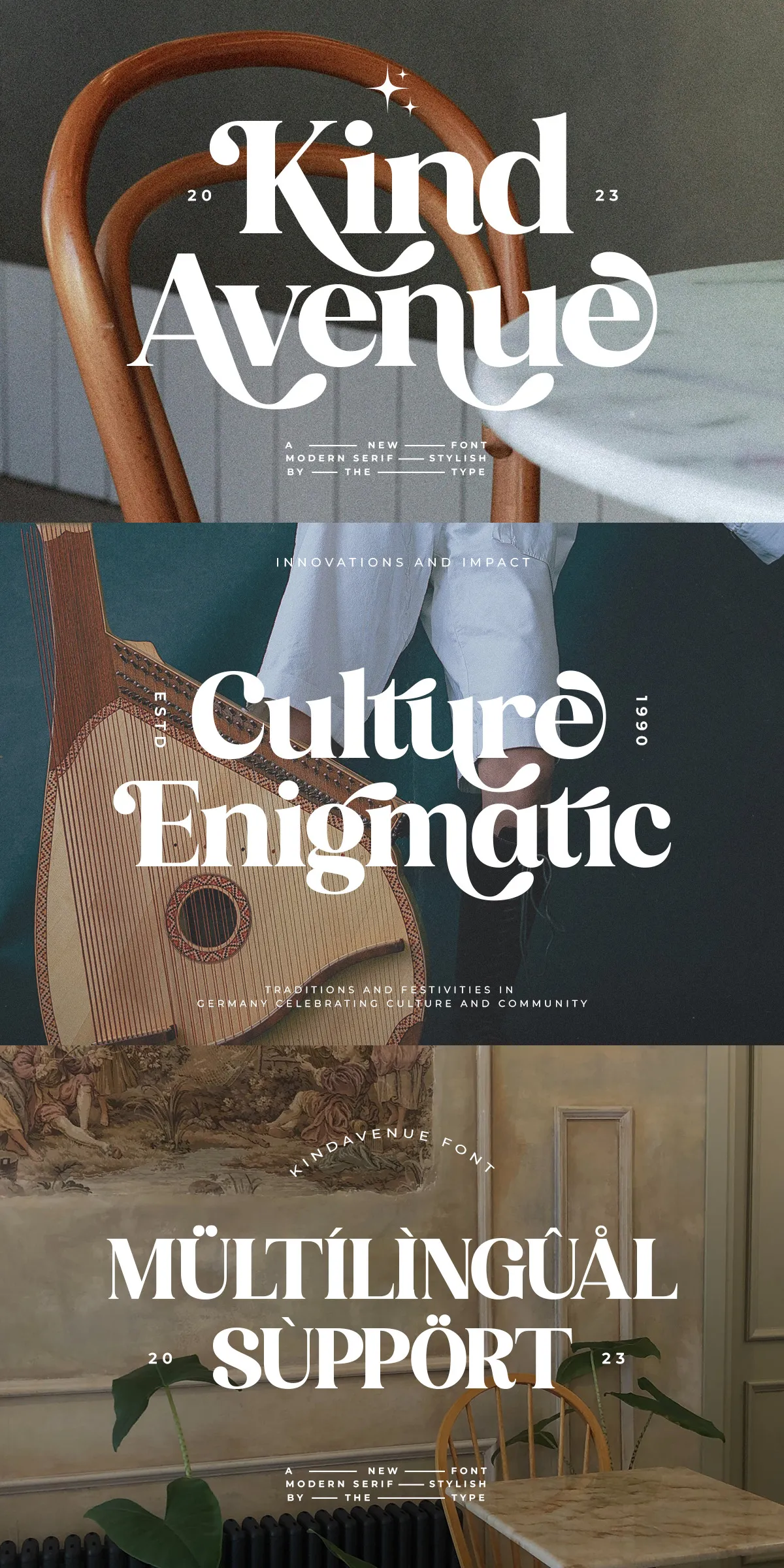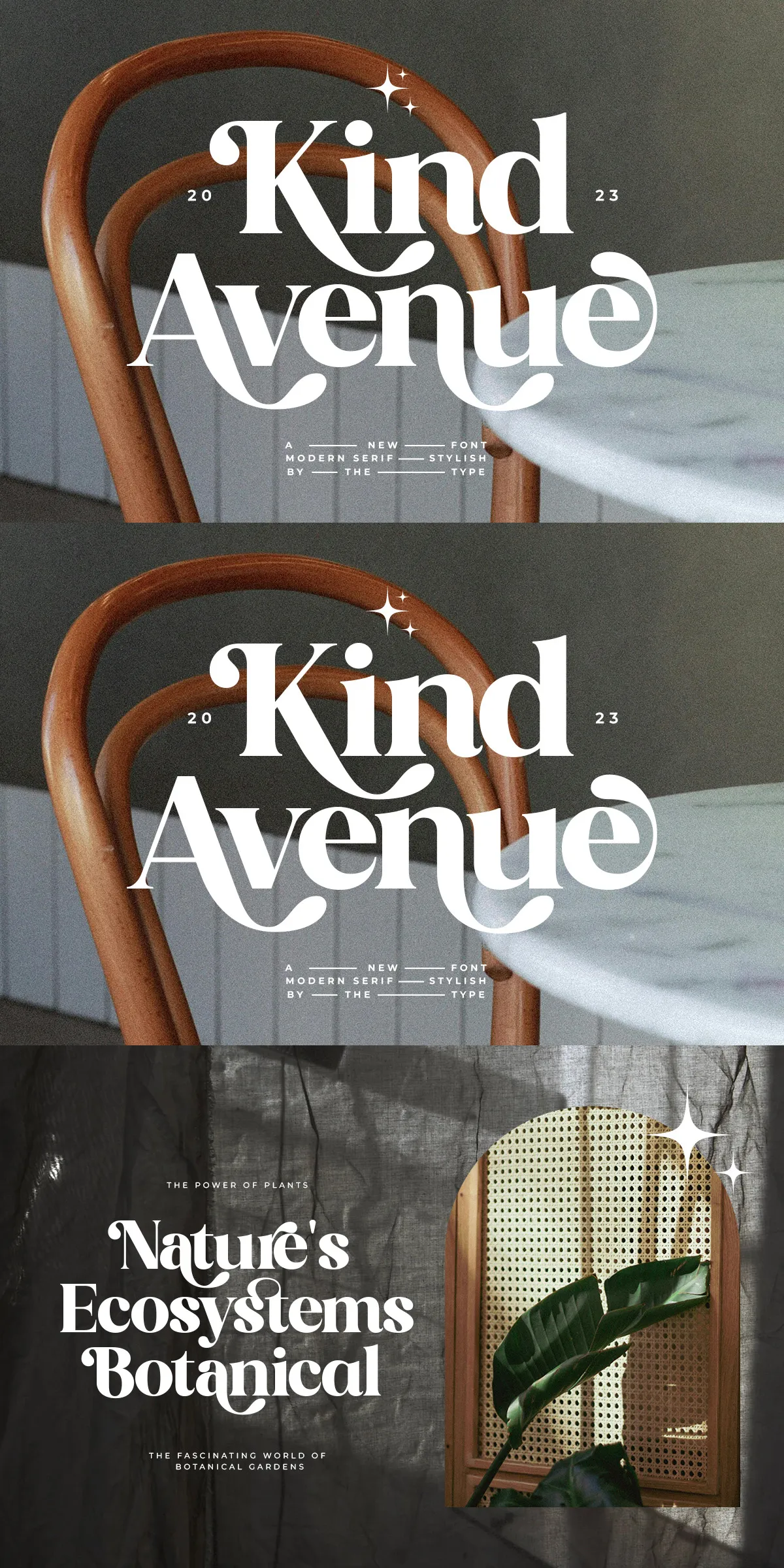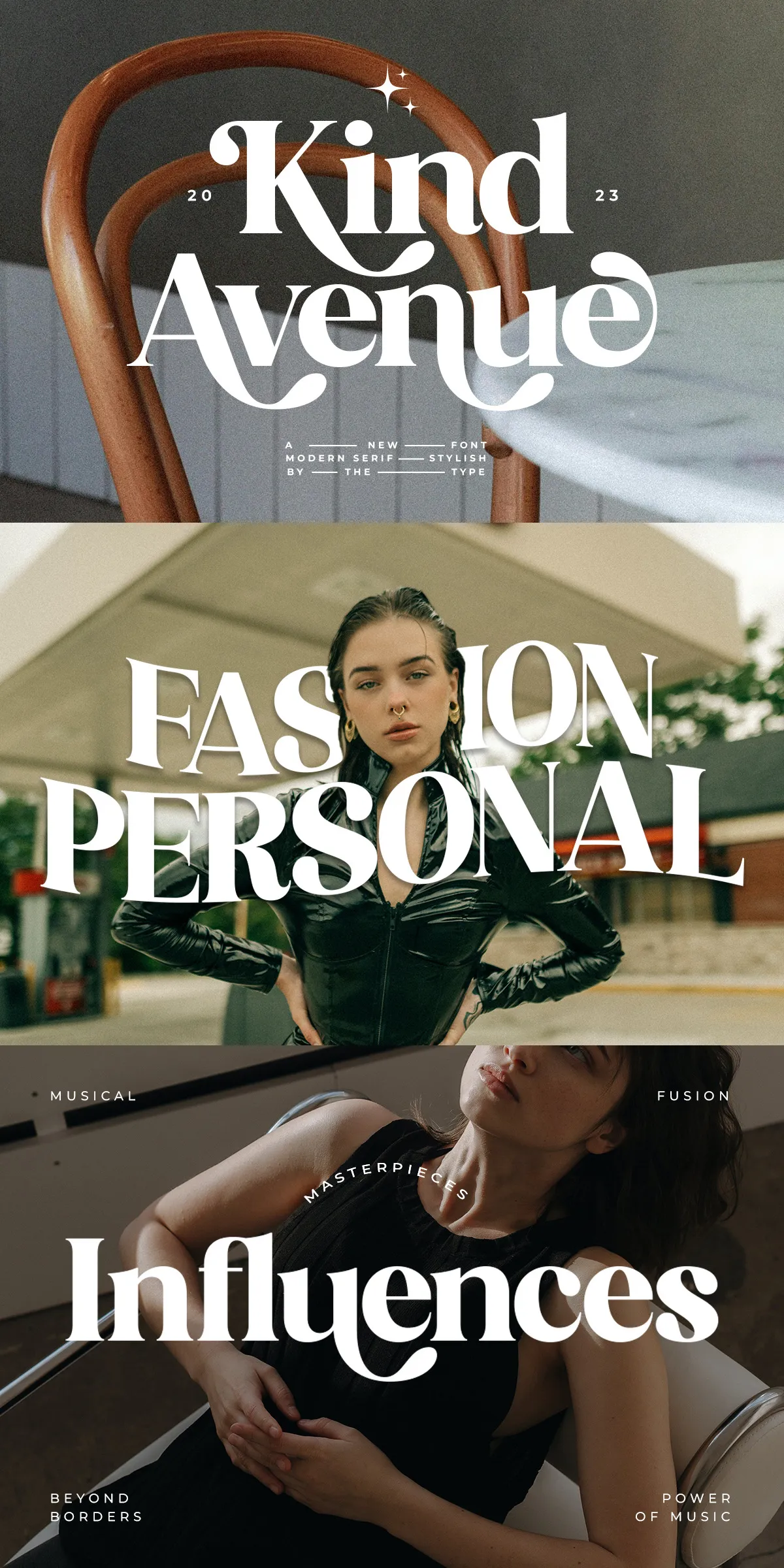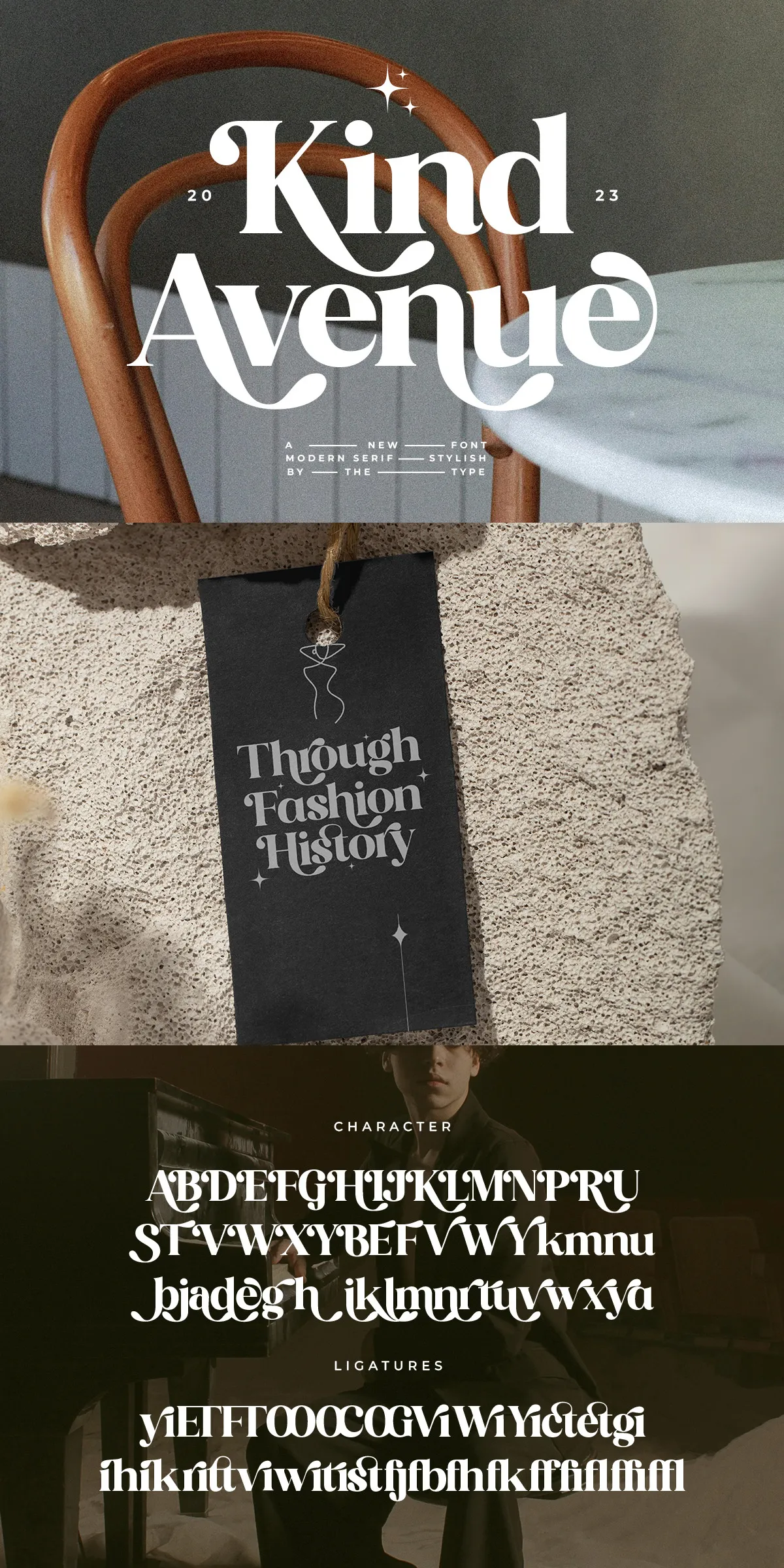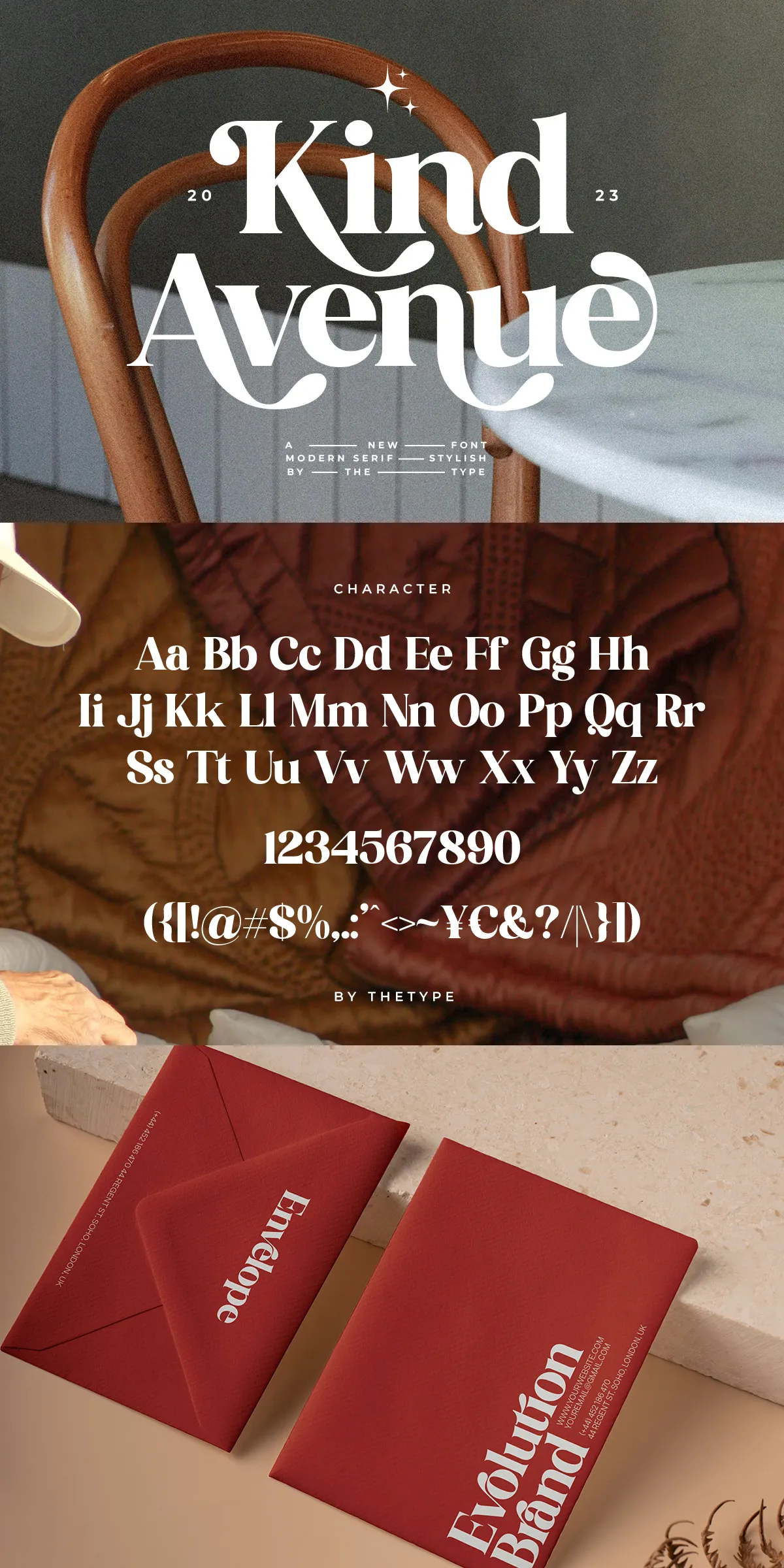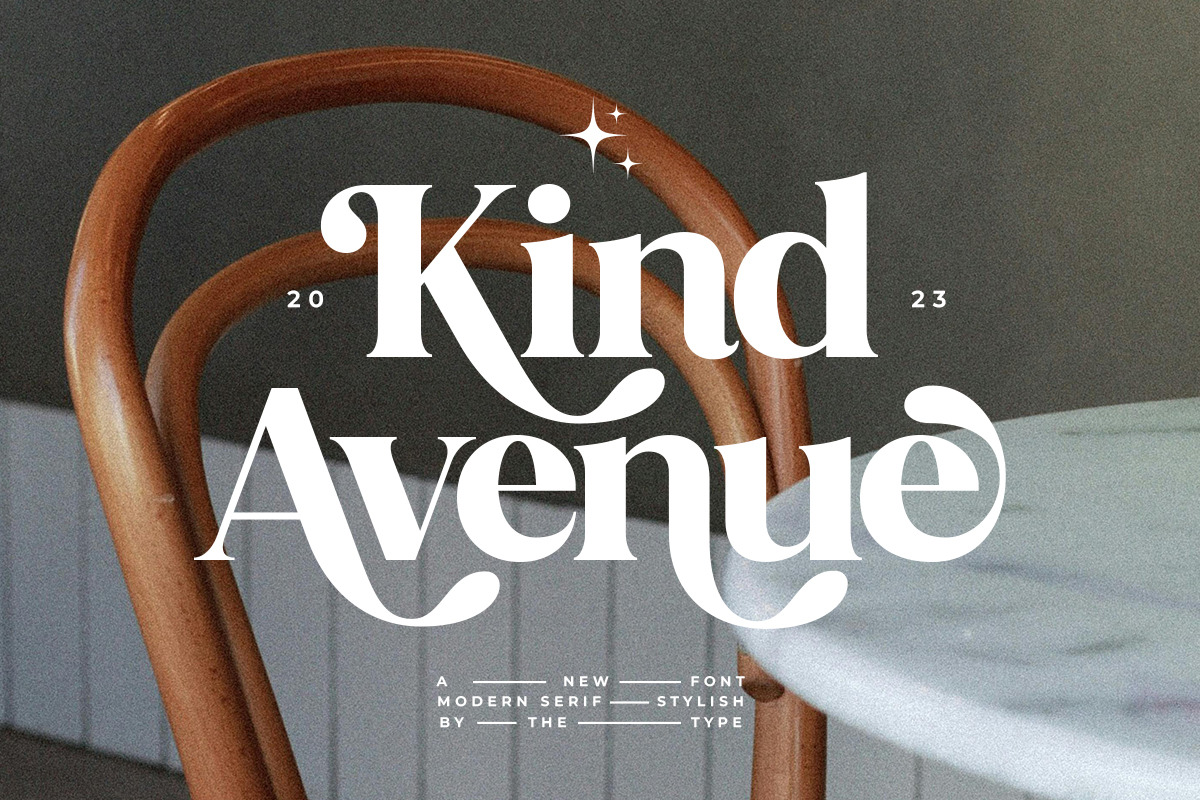
Kind Avenue – Stylish Retro Font
Step into the golden era of typographic charm with Kind Avenue Font — a versatile, stylish retro typeface designed for creators who believe design should be both nostalgic and boldly modern. This isn’t just a font. It’s a creative tool that lets you switch effortlessly between classic conservatism and playful, contemporary expression — all from a single, beautifully crafted typeface.
Master the Mood: From Classic to Creative in a Single Click
Kind Avenue was engineered to wear multiple hats. In its traditional form, it exudes the confidence of a vintage serif — clean, structured, and authoritative. Perfect for body text, formal invitations, branding, or editorial layouts where clarity and timelessness matter. But don’t limit yourself. With a few taps, unlock its expressive side: swap in alternates, activate ligatures, and let the font transform into something fun, bold, and uniquely yours.
Imagine designing a coffee shop branding kit: start with a solid, retro-serif appearance for the business name — dependable and trustworthy — then use expressive ligatures and alternate forms for the tagline, making it pop with personality. That’s the power of Kind Avenue. It’s designed for you to control the tone, mood, and impact.
What Makes This Font So Versatile?
Built for professional use and creative play alike, Kind Avenue delivers features that go beyond basic typography:
• Full Set of Alternates — Replace standard letters with unique variants for visual interest and typographic rhythm. Say goodbye to repetitive, flat text.
• Smooth Ligature System — Letters flow together in elegant, connected forms, adding movement and style to headlines, quotes, and logos.
Where Kind Avenue Shines: Creative Applications
From print to digital, from branding to personal projects, Kind Avenue adapts to any context with style and substance:
• Logos & Brand Identity — Create memorable visual identities that feel both established and fresh. Perfect for boutiques, cafes, fashion labels, and artisan brands.
• Headlines & Posters — Command attention with retro-inspired designs that feel authentic, bold, and modern all at once.
• Invitations & Stationery — Ideal for events with a vintage or nostalgic vibe — weddings, anniversaries, or themed parties.
• Social Media & Digital Content — Stand out in feeds with typography that feels hand-crafted and intentional.
• Lifestyle & Product Packaging — Elevate cosmetics, crafts, and niche products with a font that whispers quality and charm.
• Blog Titles & Editorial Design — Bring personality to online content without sacrificing readability.
Don’t just use Kind Avenue — own it. Experiment. Try pairing it with modern sans-serifs for contrast. Layer ligatures for dynamic text flows. Replace standard letters with alternate forms to make every project feel one-of-a-kind.
This font isn’t just a tool — it’s an invitation to play with type. Whether you’re crafting a timeless brand or a quirky Instagram post, Kind Avenue gives you the voice, the style, and the flexibility to stand out.